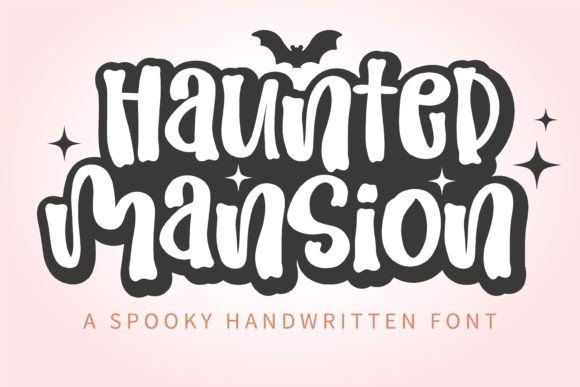
Introducing Haunted Mansion Font, the ultimate choice for all your Halloween-themed projects! Created by the talented BitongType, this spooky and fun display font is guaranteed to add a dramatic touch to any October endeavor.
With its captivating and eerie design, Haunted Mansion Font is the epitome of Halloween spirit. Its unique and eye-catching style will instantly grab the attention of your audience, making your projects stand out from the crowd. Whether you're creating party invitations, posters, or social media graphics, this font will bring your ideas to life with an enchanting and chilling vibe.
What sets Haunted Mansion Font apart is its versatility. It seamlessly blends the spooky atmosphere of haunted houses and ghostly tales with a touch of fun and excitement. The carefully crafted characters exude a sense of mystery and suspense while maintaining a playful and approachable appeal. This balance makes it the perfect choice for a wide range of projects, from spooky children's books to haunted house advertisements.
But it's not just about the captivating design – Haunted Mansion Font is also optimized for performance. Its crisp and clear outlines ensure excellent legibility, even in small sizes or on digital displays. Moreover, it fully supports mini LED displays, making it an ideal font for any technology-driven Halloween project.